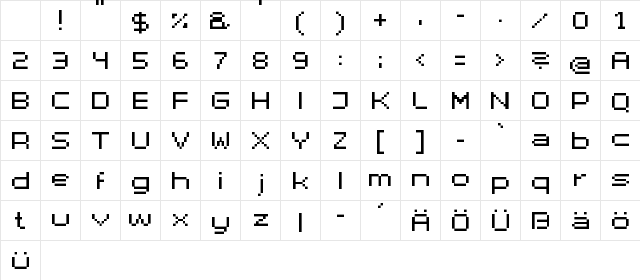
Complete superhelio _extended_ultra glyph index. Displaying only characters natively supported by superhelio _extended_ultra font.
superhelio is a composed and adaptable typeface that performs quietly and consistently across a wide range of design contexts.